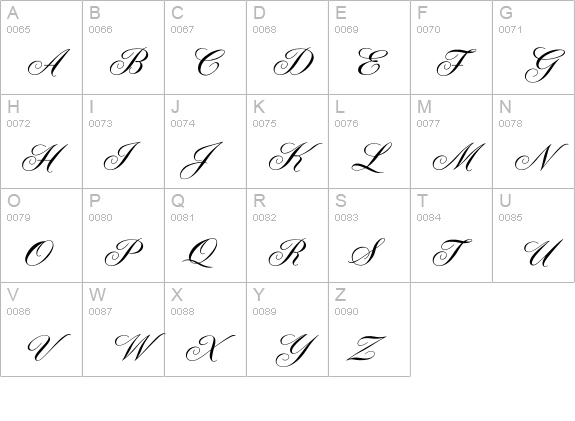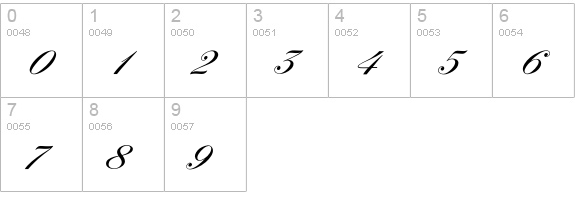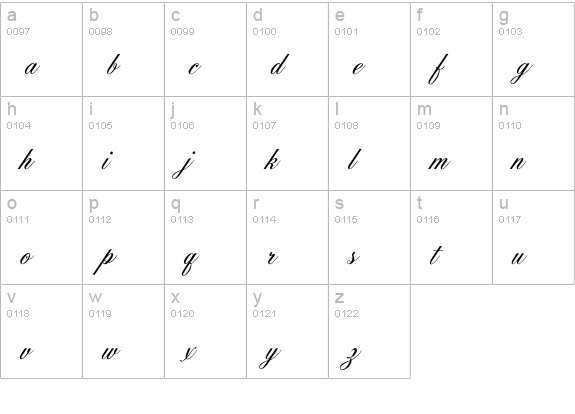
Cumberland Font Details
Cumberland font is a versatile and elegant typeface that combines classic sophistication with modern appeal. Its timeless design makes it perfect for a wide range of projects, from branding to editorial design. The graceful curves and clean lines of Cumberland give it a sense of refinement and professionalism, making it a go-to choice for designers looking to make a statement. Best of all, Cumberland font is available for free download at FontsMarket.com. This means you can easily add this beautiful typeface to your font collection without any cost. Whether you're working on a personal project or a client's campaign, Cumberland font is sure to elevate your design work to the next level. Don't miss out on this opportunity to enhance your creative projects with the stunning Cumberland font, now available for free at FontsMarket.com.